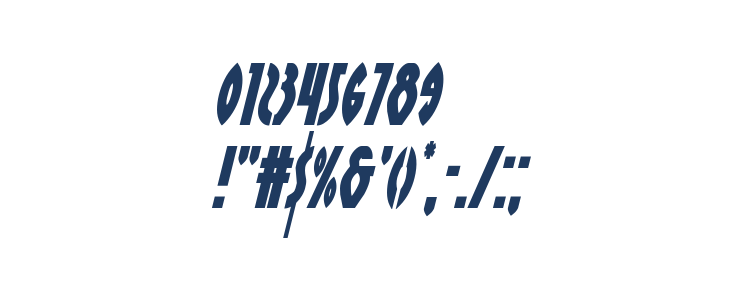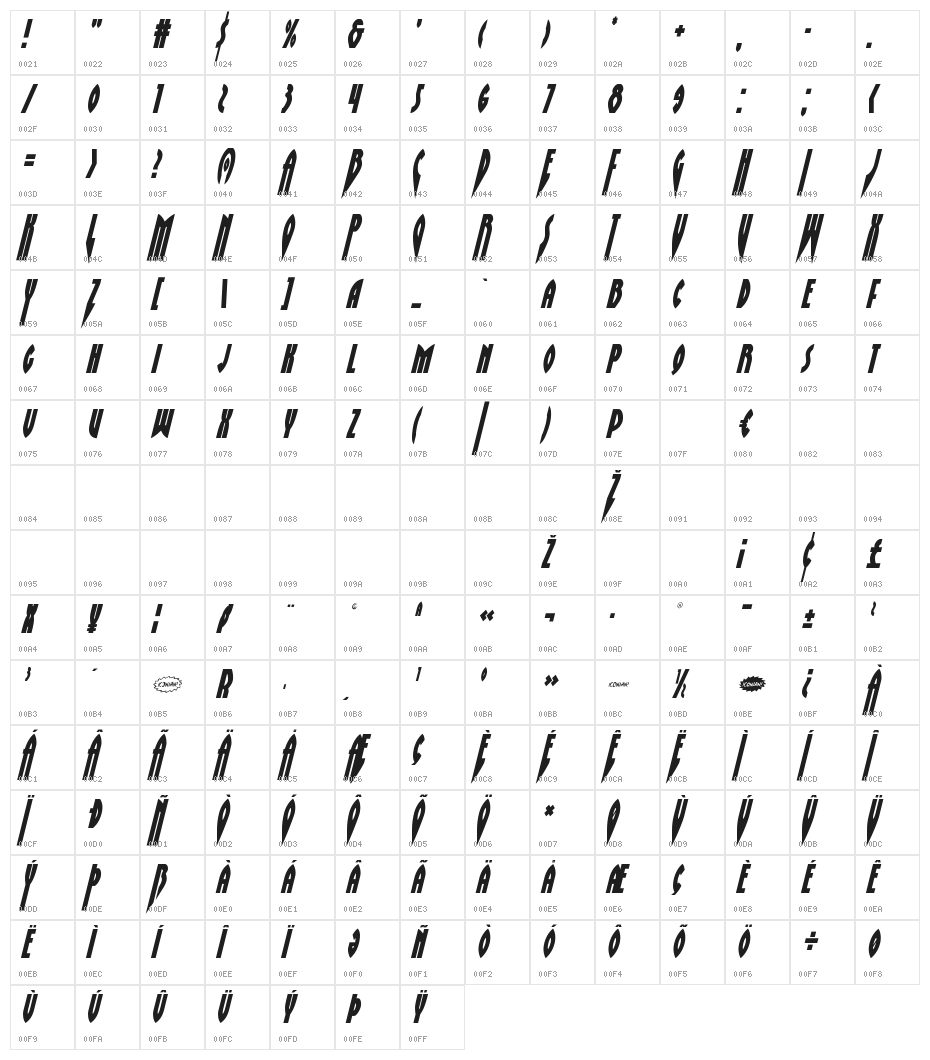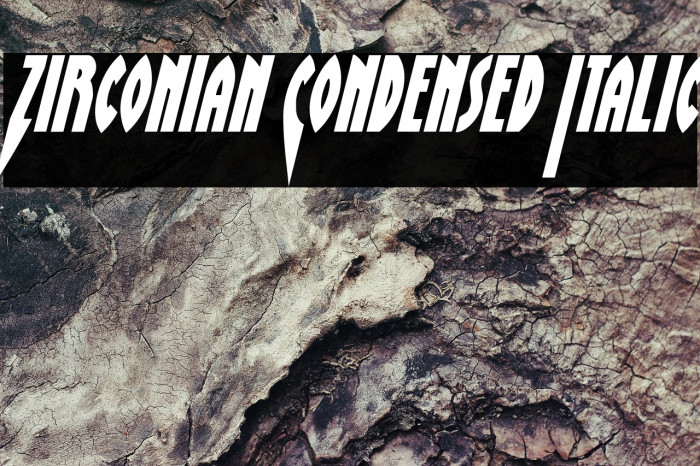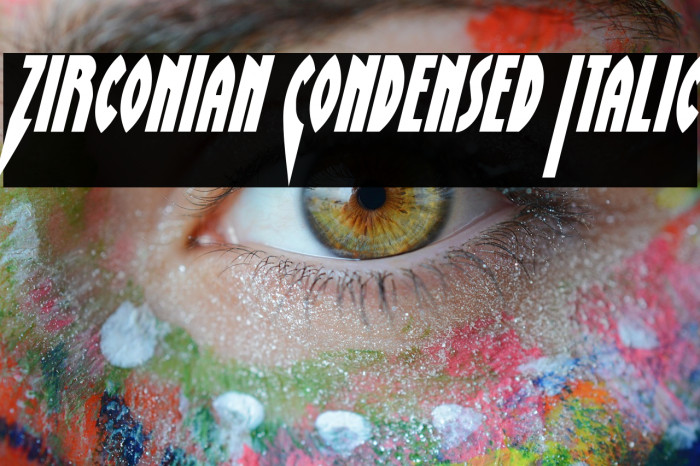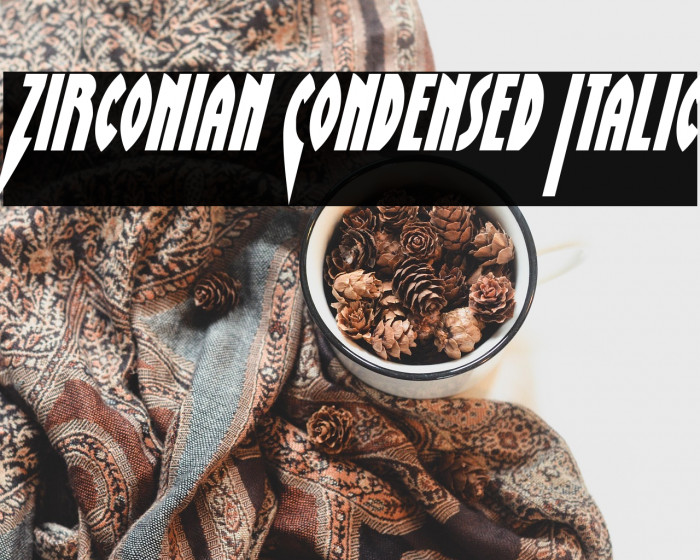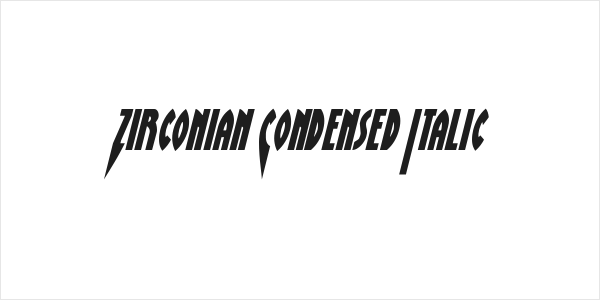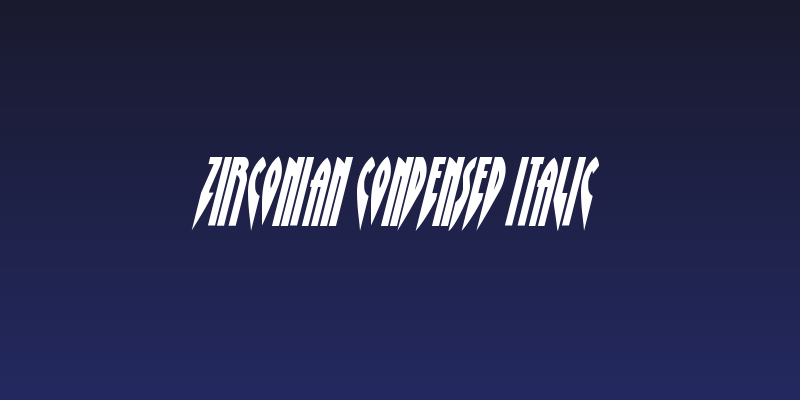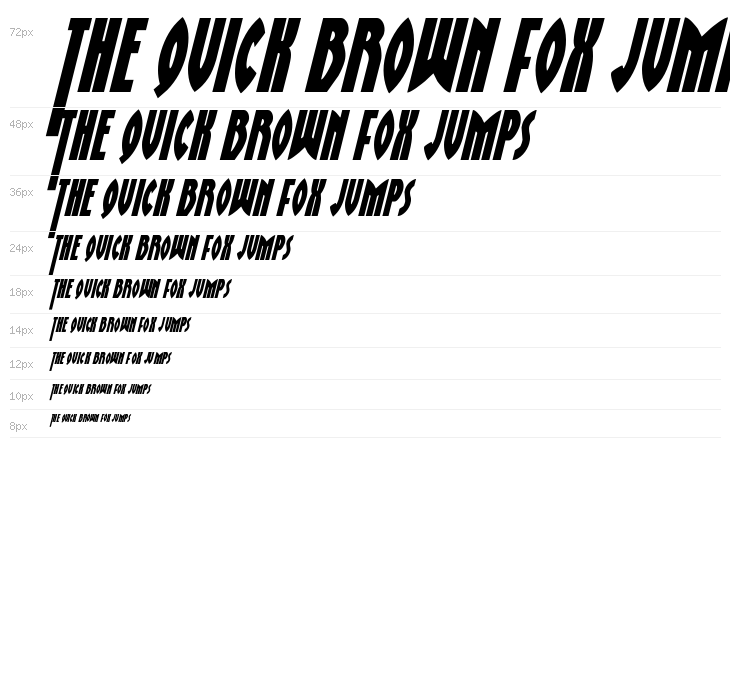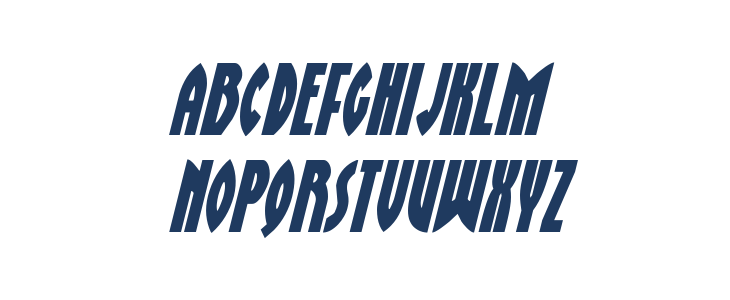
Zirconian Condensed Italic Font
Zirconian Condensed Italic Description
This font features a bold and dynamic style with a strong italic slant, giving it a sense of motion and energy. The characters are condensed, which enhances the compact and impactful appearance. The strokes are thick and consistent, providing a high contrast that makes each letter stand out distinctly. The overall design is modern and assertive, making it suitable for attention-grabbing headlines and titles. The angular edges and sharp lines contribute to a futuristic and edgy aesthetic, perfect for projects that require a bold statement.